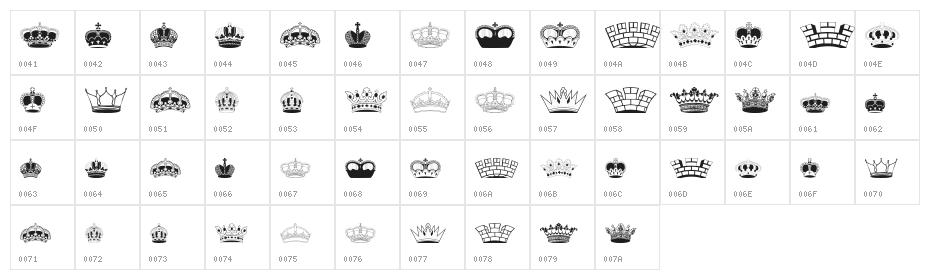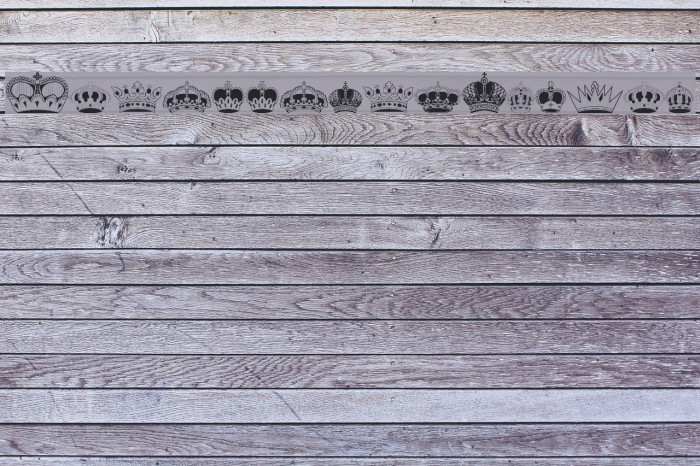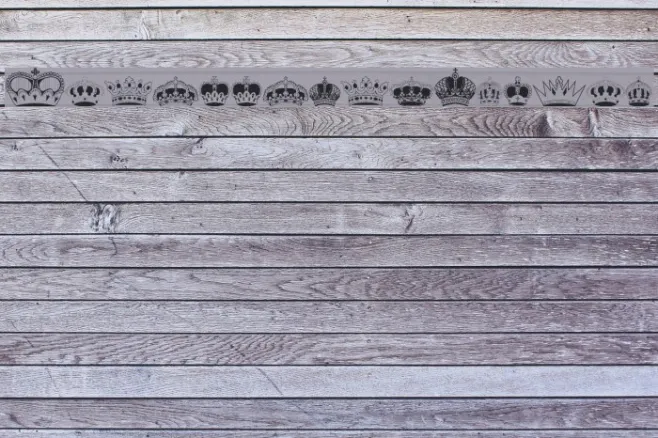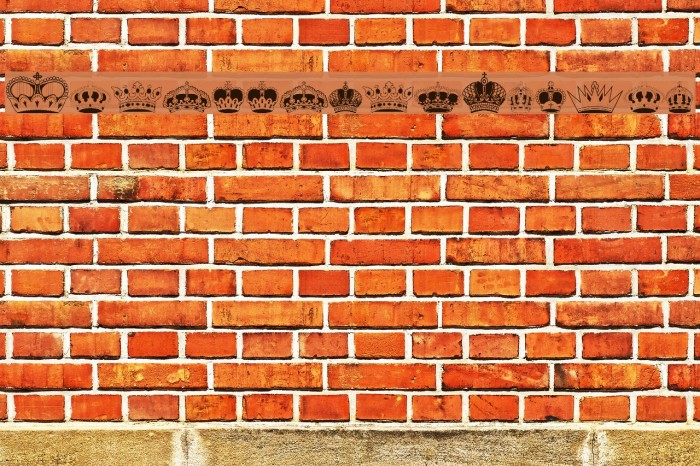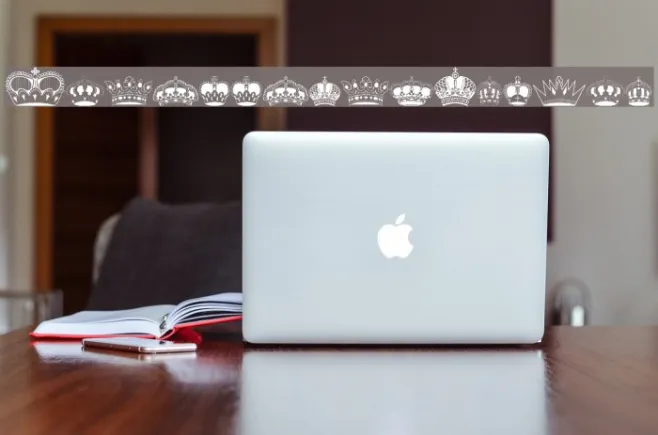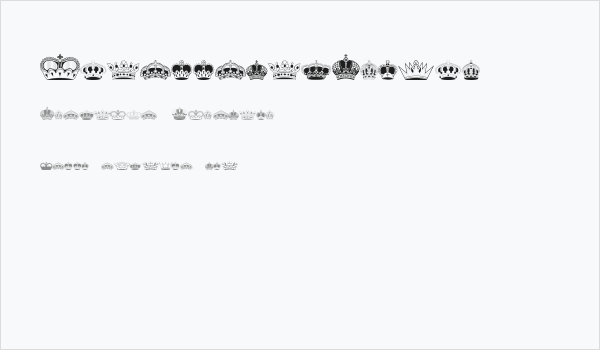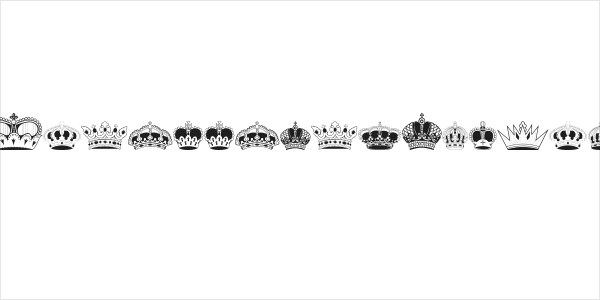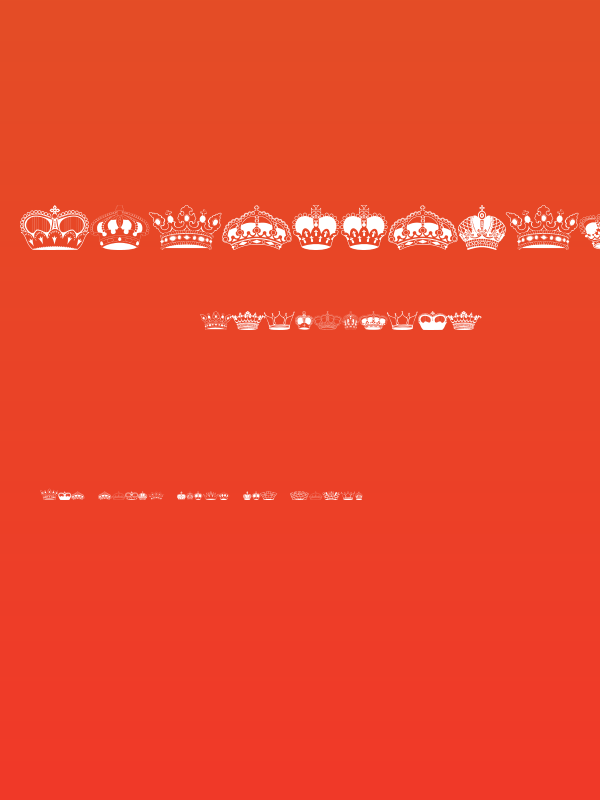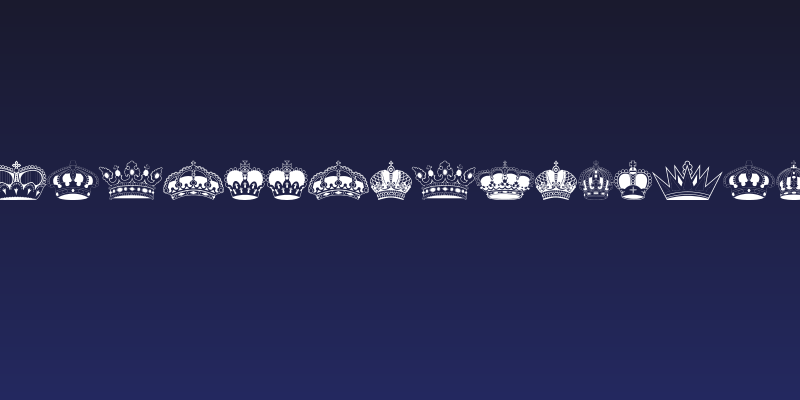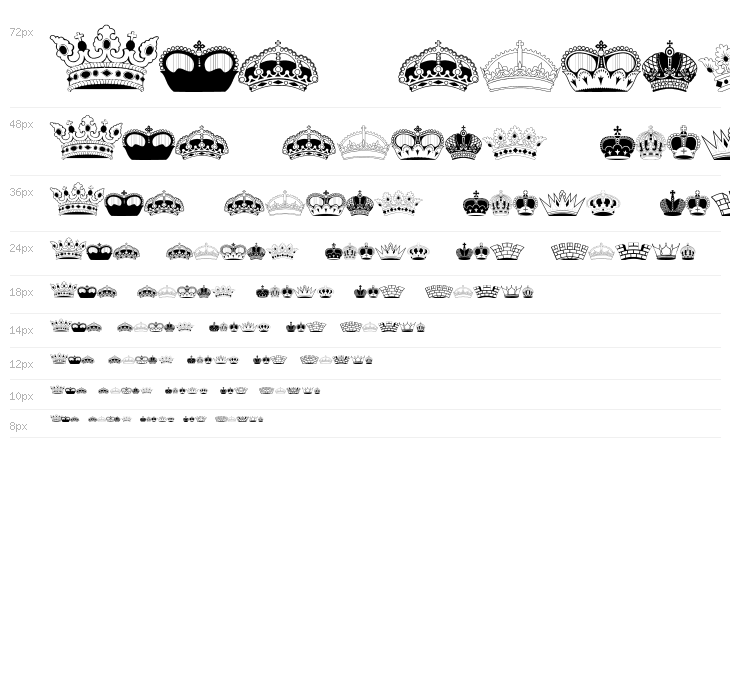
IntellectaCrowns Font
IntellectaCrowns Description
A decorative dingbat font featuring a variety of intricately detailed crown illustrations, each glyph representing a unique crown design with both solid and outlined styles. The crowns range from classic royal to stylized and modern interpretations, offering a diverse selection for ornamental use.
| Overall Style | Decorative, Ornamental, Thematic |
| Use Case | Decorative elements, Themed graphics, Logos, Invitations |
| Proposed Projects | Invitations, certificates, regal-themed branding, scrapbooking, decorative borders, event materials, and logo accents. |